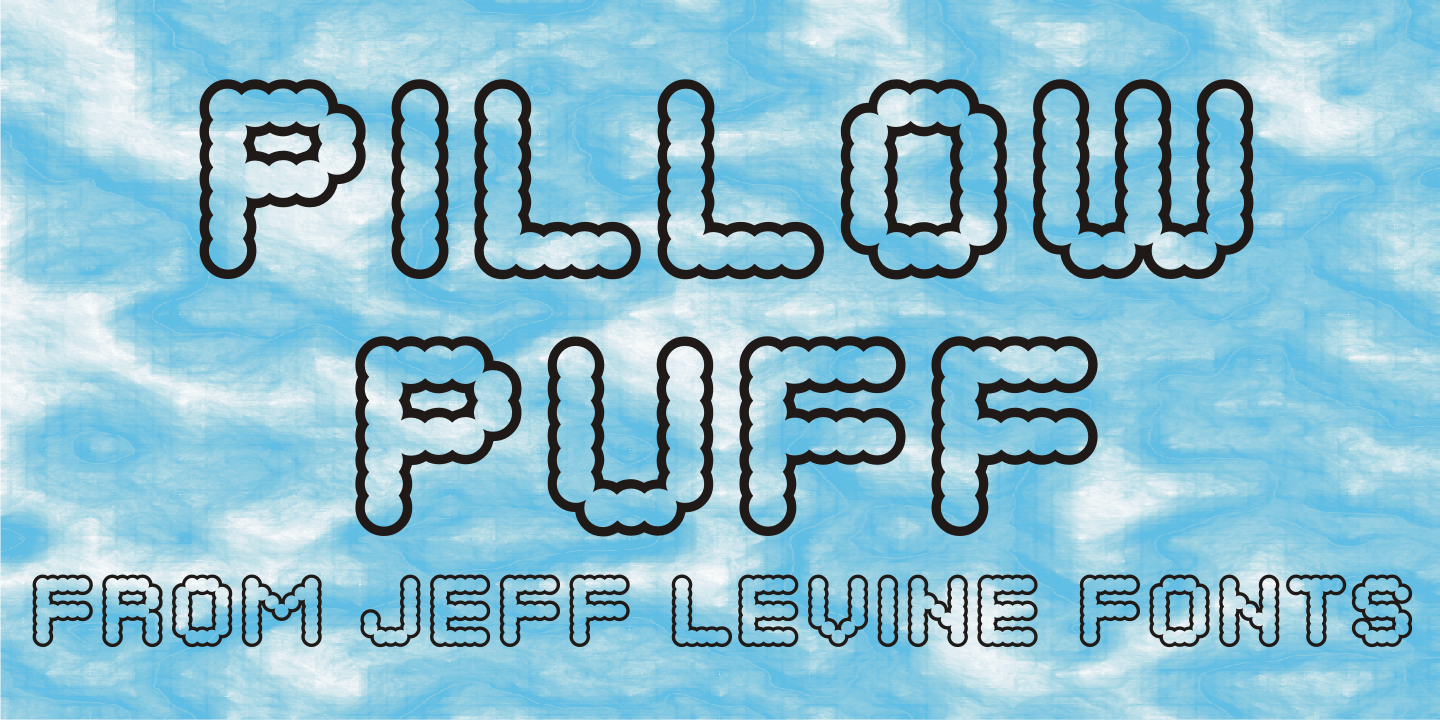
Pillow Puff
Pillow Puff JNL is a cottony-soft, fluffy, lighter-than-air display font for novelty applications. Use it for advertising fabrics, bath tissue, baby items or anything that conveys something soft and gentle.